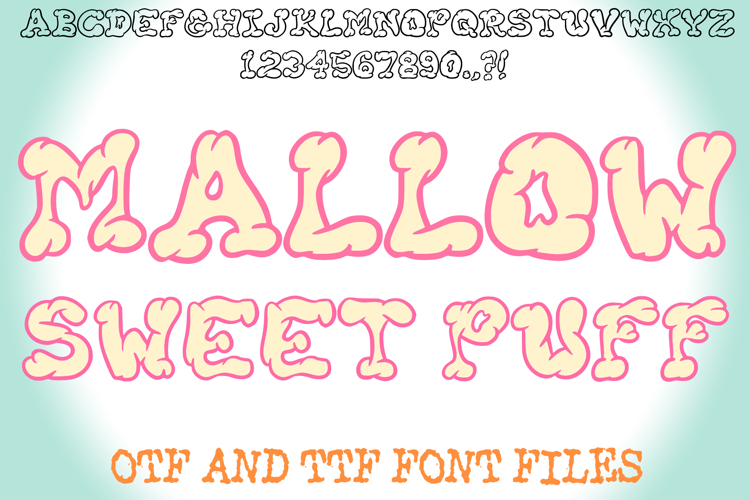
Mallow Sweet Puff Lettering ABC Font Type Wobbly OTF
Introducing Mallow Sweet Puff Font — a soft, bouncy, and delightfully sweet display font that looks like it’s made of fluffy marshmallows! This playful hand-drawn typeface brings cozy, candy-coated charm to any project. With its puffy bubble letters and fun, rounded style, Mallow Sweet Puff is perfect for stickers, Cricut crafts, T-shirts, children’s designs, logos, invitations, and Kawaii art.
Make your next design irresistibly cute and full of marshmallow magic with Mallow Sweet Puff Font!